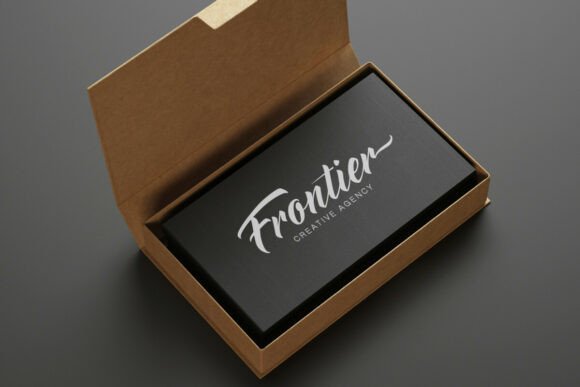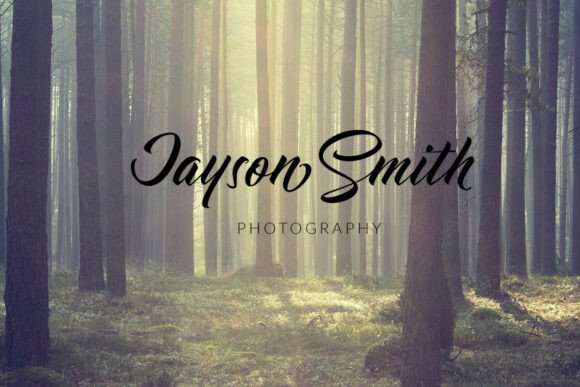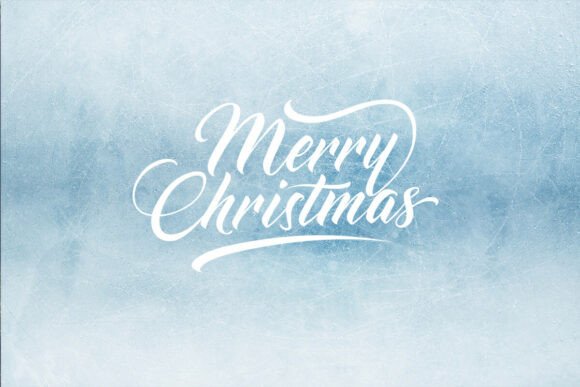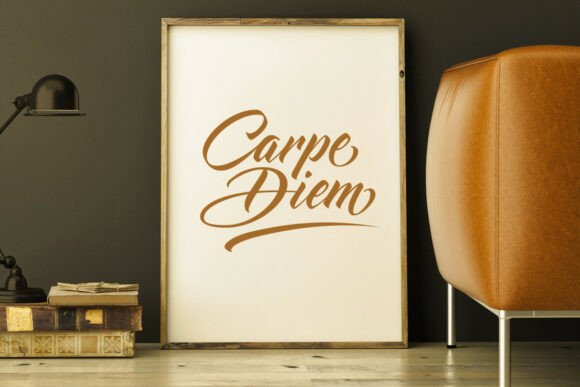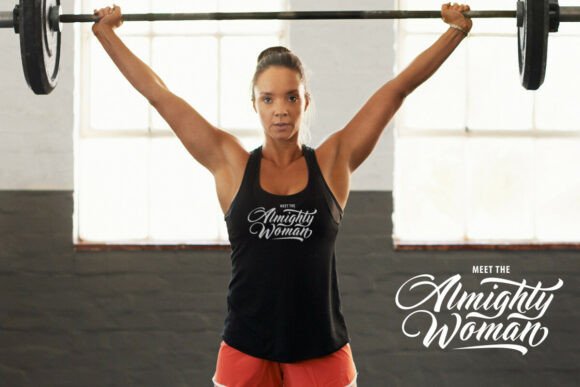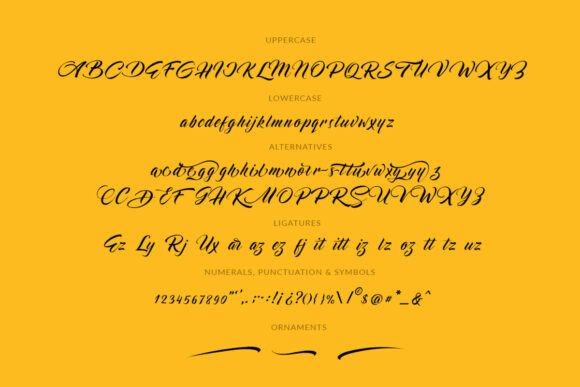
Introducing Achievement Font: Elevate Your Designs with Modern Calligraphy
In the world of typography, few fonts manage to capture the essence of modern calligraphy as effectively as Achievement Script. This bold, dynamic brush script typeface is a game-changer for designers seeking to infuse their projects with a touch of elegance and sophistication. Perfect for a wide range of applications, from logo design and product packaging to posters, social media graphics, and greeting cards, Achievement Script is an indispensable tool for anyone looking to create stylish, attention-grabbing content.
The Distinctive Characteristics of Achievement Script
What sets Achievement Script apart from other fonts is its hand-drawn style, which exudes an air of authenticity and craftsmanship. The font features authentic ink brush strokes, giving it a unique, organic feel that is both elegant and masculine. The bold strokes and fluid connections between letters create a sense of movement and energy, making it perfect for headlines, quotes, and signage.
Key Features of Achievement Script
- Bold and Dynamic: Achievement Script is a bold, dynamic brush script typeface that commands attention and makes a lasting impression.
- Hand-Drawn Style: The font’s hand-drawn style gives it an authentic, organic feel that is perfect for designers seeking a unique, crafted look.
- Elegant yet Masculine: Achievement Script strikes the perfect balance between elegance and masculinity, making it suitable for a wide range of projects and applications.
- Authentic Ink Brush Strokes: The font features authentic ink brush strokes, adding a touch of authenticity and craftsmanship to any design.
- Swash Elements: Achievement Script includes swash elements, which can be used to add a touch of flair and sophistication to any design.
- Extensive Lettering Capabilities: Achievement Script includes extensive lettering capabilities, making it perfect for creating stylish wordmarks and logotypes.
Applications for Achievement Script
Achievement Script is a versatile font that can be used in a wide range of applications, including:
- Logo Design: The font’s bold, dynamic style makes it perfect for creating eye-catching logos and wordmarks.
- Product Packaging: Achievement Script can be used to add a touch of elegance and sophistication to product packaging.
- Posters and Social Media Graphics: The font’s bold style and authentic ink brush strokes make it perfect for creating attention-grabbing posters and social media graphics.
- Greeting Cards: Achievement Script can be used to create stylish, handmade-looking greeting cards.
- Apparel Design: The font’s bold style and swash elements make it perfect for creating eye-catching apparel designs.
- Fashion-Forward Projects: Achievement Script is ideal for fashion-forward projects, such as fashion branding, advertising, and editorials.
Tips for Using Achievement Script
To get the most out of Achievement Script, here are a few tips to keep in mind:
- Use it as a Headline Font: Achievement Script is perfect for use as a headline font, where its bold style and authentic ink brush strokes can really make an impact.
- Experiment with Swashes: The font’s swash elements can be used to add a touch of flair and sophistication to any design.
- Pair it with Other Fonts: Achievement Script can be paired with other fonts to create a unique and interesting contrast.
- Use it to Create Wordmarks and Logotypes: The font’s extensive lettering capabilities make it perfect for creating stylish wordmarks and logotypes.
| Author | vatesdesign |
Achievement Script is a bold, dynamic brush script typeface that is perfect for designers seeking modern calligraphy aesthetics. With its hand-drawn style, authentic ink brush strokes, and swash elements, this font is ideal for a wide range of applications, from logo design and product packaging to posters, social media graphics, and greeting cards. Whether you’re a professional designer or a crafty DIY enthusiast, Achievement Script is an essential tool for creating stylish, attention-grabbing content that stands out from the crowd.